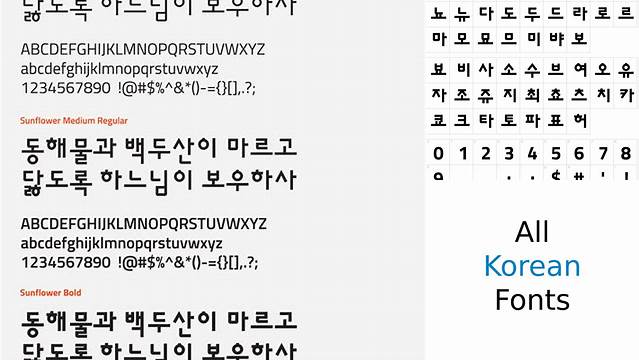
Understanding Korean Font Support in Windows 10
Windows 10 naturally comes with a decent set of fonts, but sometimes they just don't cut it when you're working with Korean text. Whether you're a language learner, a K-drama enthusiast, or a professional dealing with Korean documents, having the right fonts is essential. The default fonts might not display all Korean characters correctly, or they might simply lack the aesthetic flair you're looking for. Knowing the basics of font support in Windows 10 will help you troubleshoot any display issues and make informed decisions about which fonts to install. For example, understanding character encoding (like Unicode) and how it relates to font rendering can save you a lot of headaches down the road. Trust me, spending a little time on this now will pay off big time later!
Why You Might Need Additional Korean Fonts
Okay, so why bother with extra fonts? Well, the built-in fonts are okay, but they often lack variety. Imagine writing a heartfelt letter in Korean using a super generic font – it just doesn't have the same impact! Having a selection of Korean supplemental fonts allows you to express different tones and styles. Plus, certain software or older documents might require specific fonts to display text correctly. Without them, you could end up seeing boxes or garbled characters instead of beautiful Korean script. Think of it like this: your font is like your outfit. You wouldn't wear the same thing to a business meeting and a rock concert, right? Different fonts serve different purposes, and having a good variety ensures you're always dressed for the occasion!
Troubleshooting Common Font Installation Issues
Sometimes things don't go exactly as planned. Here are a few common issues and how to fix them:
- Font Not Appearing: If the font doesn't show up in your programs, try restarting the application or your computer. If that doesn’t work, make sure the font file isn't corrupted. Try downloading it again from the source.
- Garbled Text: If you see weird characters instead of Korean text, the font might not support the characters you're trying to display. Make sure you're using a font that includes the necessary Korean glyphs (characters).
- Installation Errors: If you get an error message during installation, it could be due to a corrupted font file or a problem with your system. Try downloading the font again or running a system file check.
Managing and Organizing Your Korean Fonts
Over time, you might accumulate a ton of fonts. Keeping them organized can save you a lot of headaches. Windows 10 has a built-in font management tool that lets you view, uninstall, and even hide fonts. To access it, just search for "Fonts" in the Start menu. You can also use third-party font management software for more advanced features, like font previews and organization options. Trust me, a little organization goes a long way when you have dozens (or even hundreds) of fonts to choose from!
Popular Korean Font Styles and Their Uses
Korean fonts come in all sorts of styles, from elegant calligraphy to modern sans-serif. Some popular styles include:
Best Korean Handwriting Fonts
Looking for a Korean supplemental font that captures the authentic feel of handwriting? Some popular options include styles mimicking penmanship. These add a personal and unique touch, perfect for invitations or artistic projects. Be sure to check out previews to find a style that resonates with your vision!